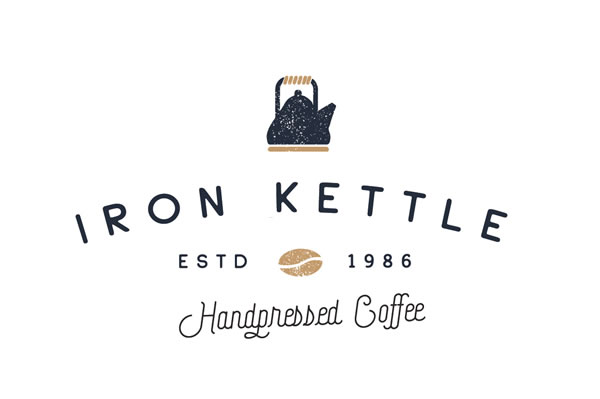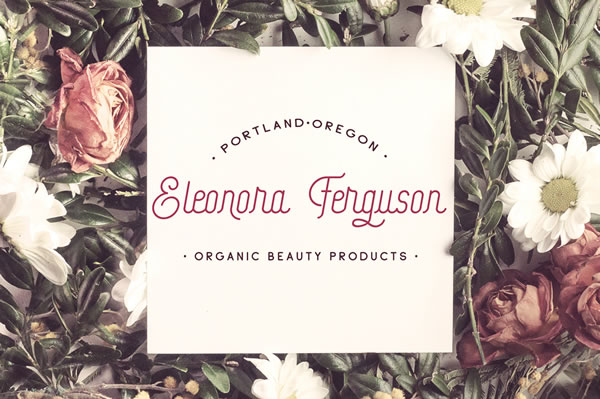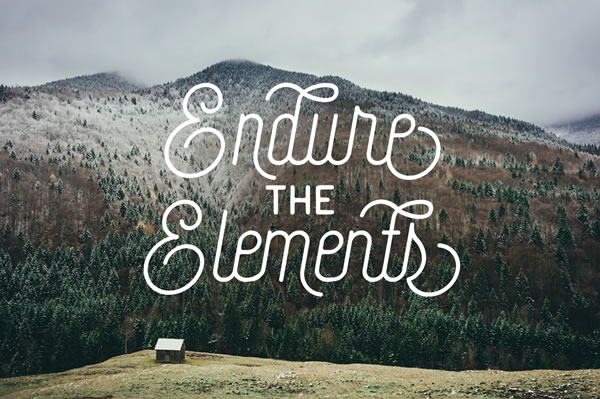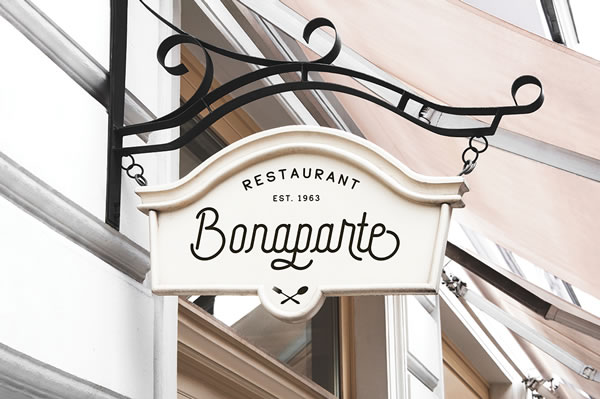
Signature is a small family that consist out of 3 fonts:
Signature Regular
Signature Medium
Signature Sans
The rounded sans serif and mono weight cursive script version are very complimentary to the regular version of Signature. Great for creating unique designs with matching variation.